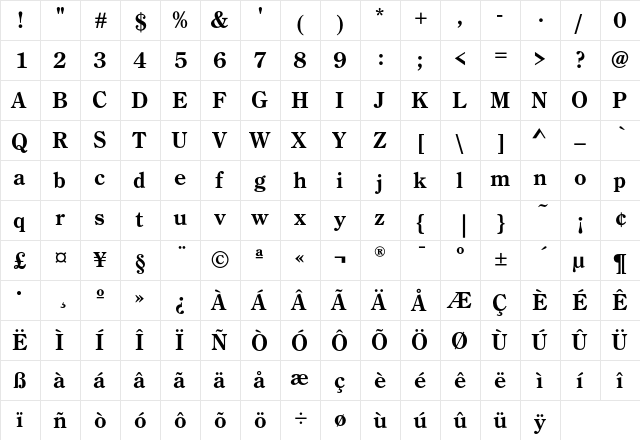
CenturyOldStyleEF Bold
Design Context for CenturyOldStyleEF Typeface
CenturyOldStyleEF brings classic typographic sensibility to the table — its serifs and measured letterforms reflect centuries of print heritage. Its bold stroke weight gives it real presence on the page.
Pro Tip: Set CenturyOldStyleEF with slightly loose tracking in headlines to let each letterform's detail read clearly at display sizes.